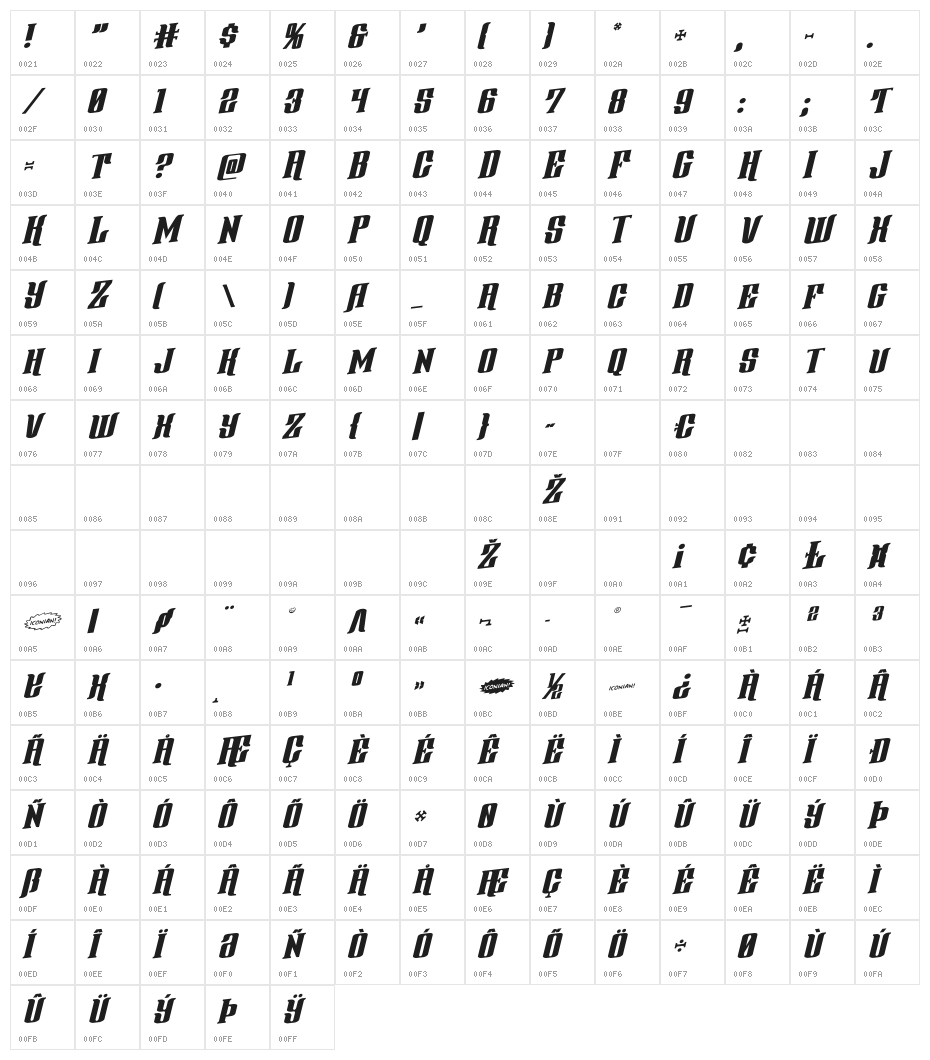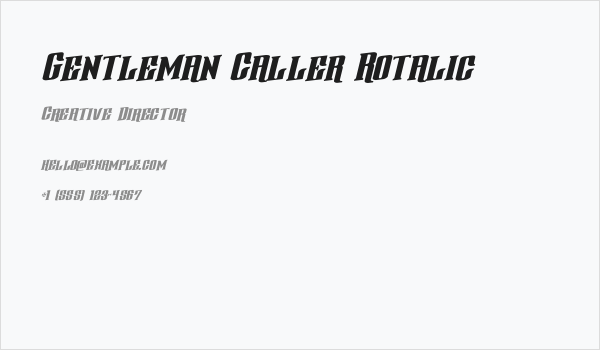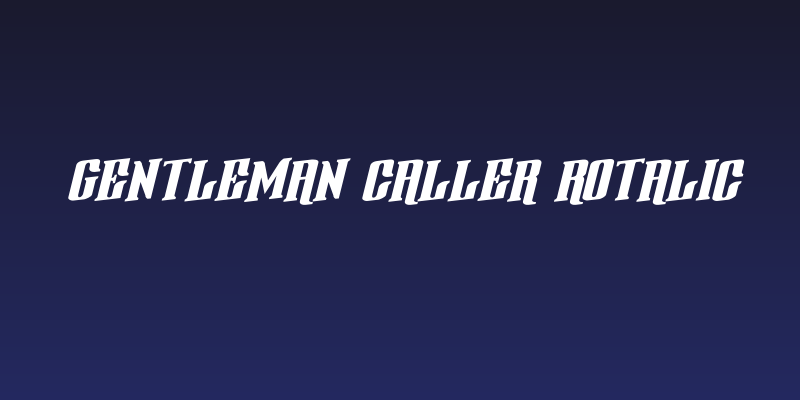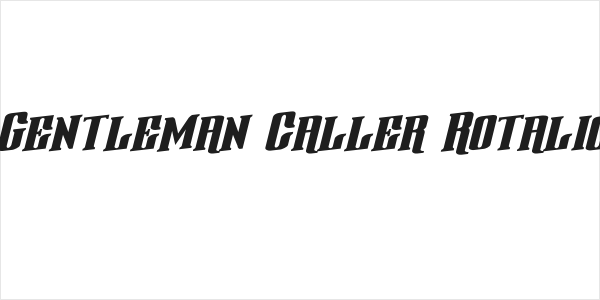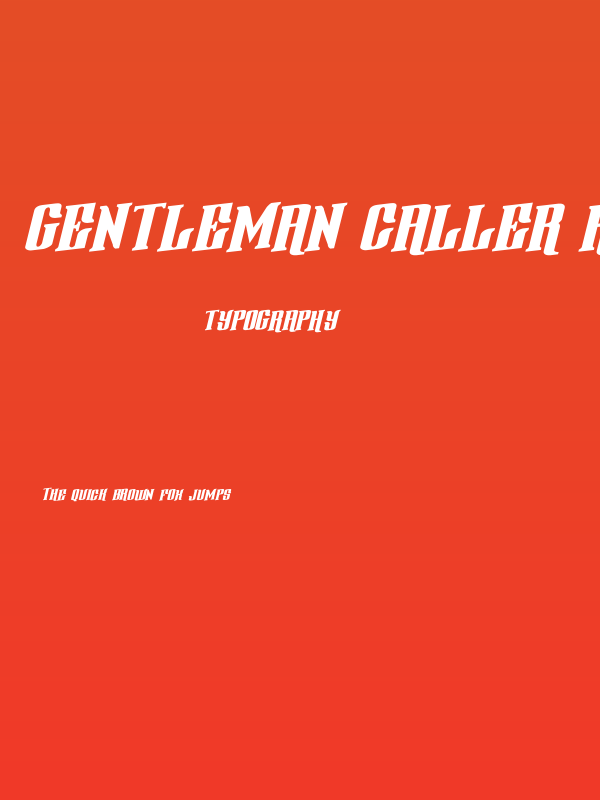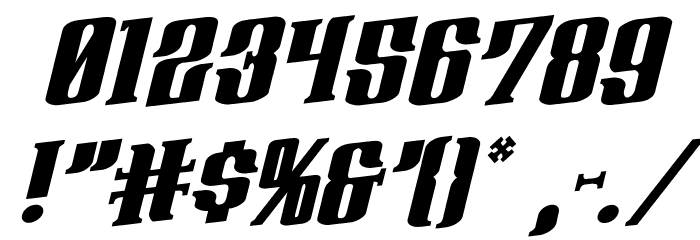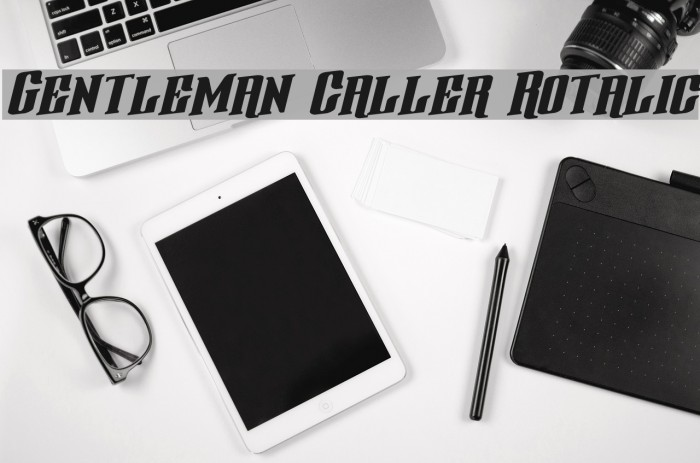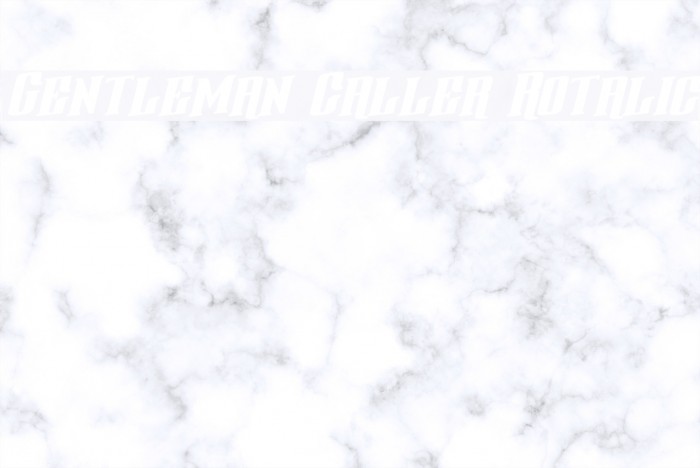
Gentleman Caller Rotalic Font
Gentleman Caller Rotalic Description
This font exudes a bold and dynamic presence with its sharp, angular lines and italicized stance. The characters are designed with a strong emphasis on diagonal strokes, giving them a sense of motion and energy. The uppercase and lowercase letters maintain a consistent style, with a slight slant that enhances their aggressive yet stylish appearance. The numbers and special characters follow the same design principles, ensuring uniformity across all glyphs. The font's high contrast between thick and thin strokes adds to its dramatic flair, making it ideal for attention-grabbing headlines and impactful designs.